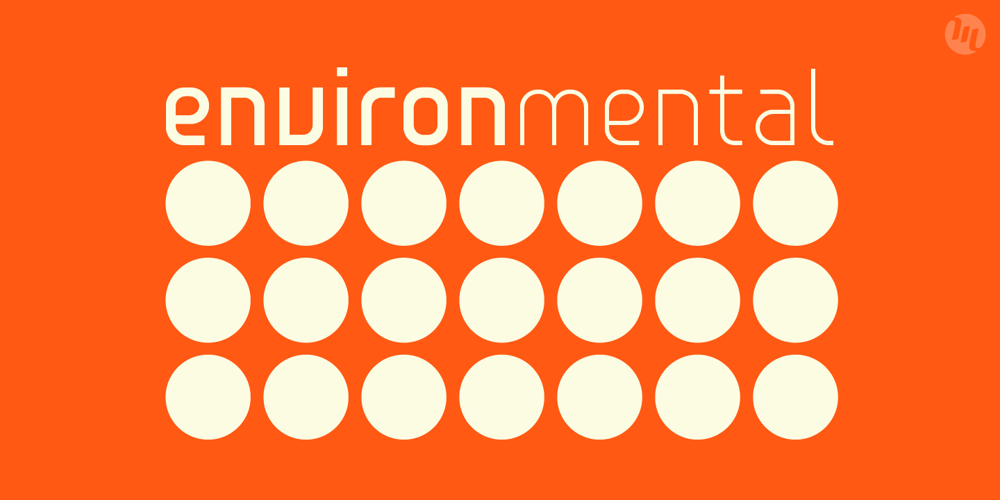
Environ Font Family was designed by Matthew Aaron Desmond and published by MADType. Environ contains 6 styles and family package options. Environ is a rounded and modular font. Because it utilizes many straight lines, it works well for small blocks of text at small sizes.